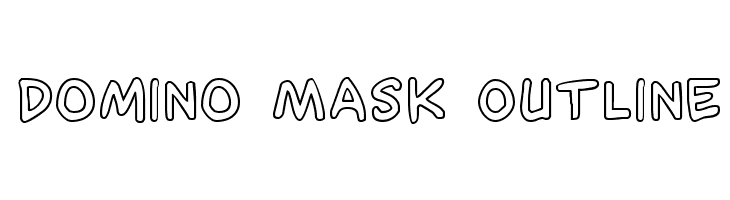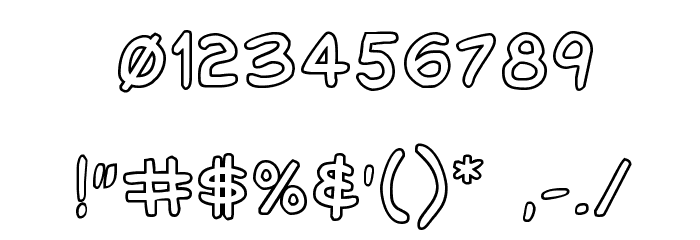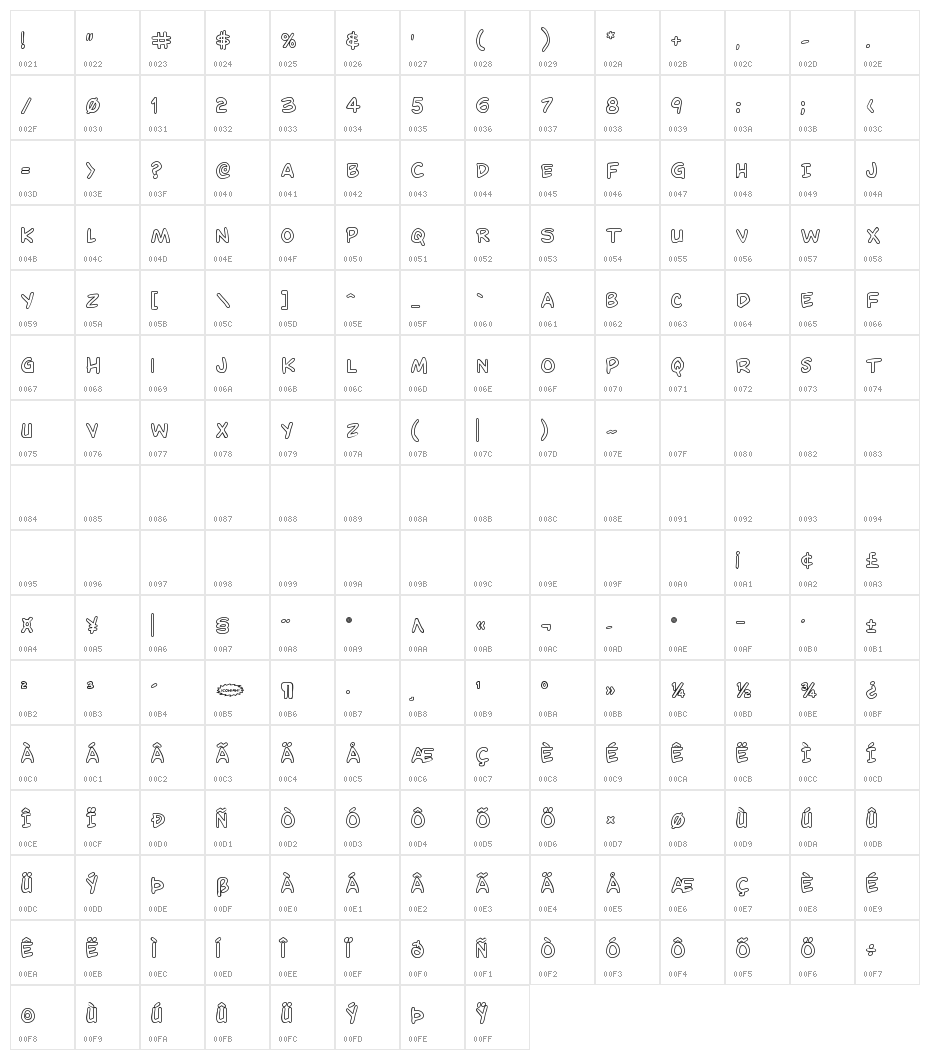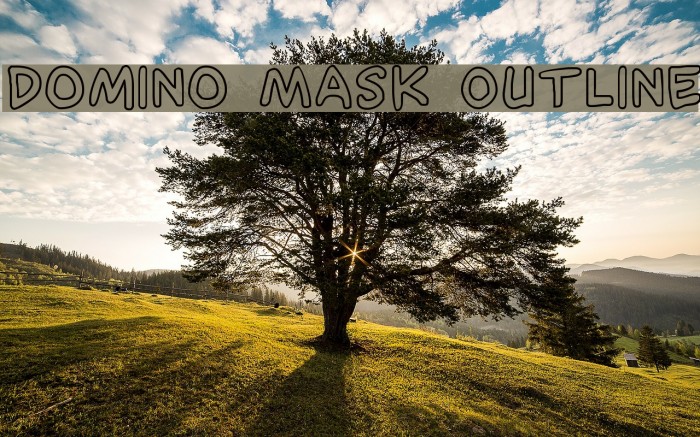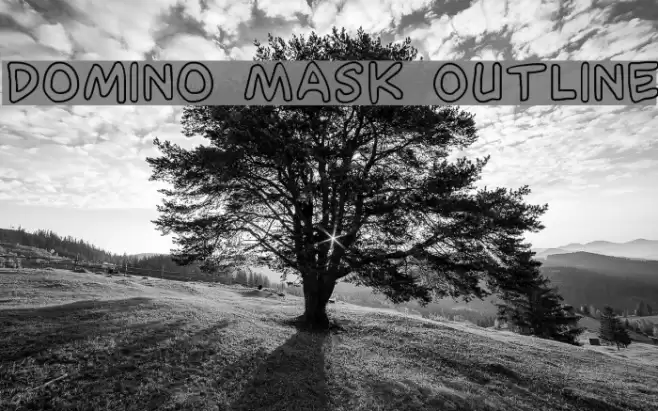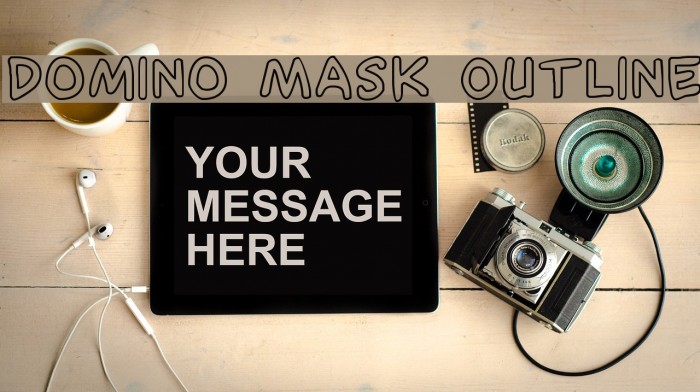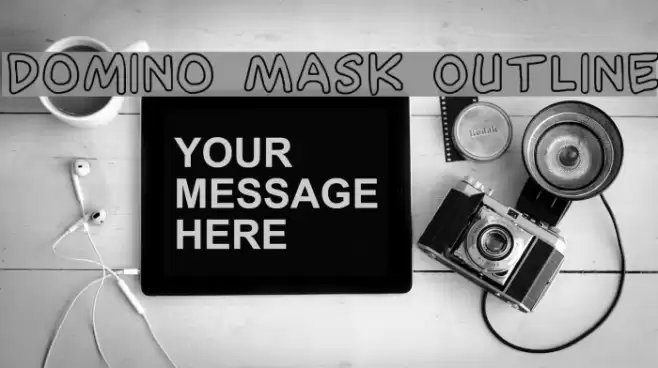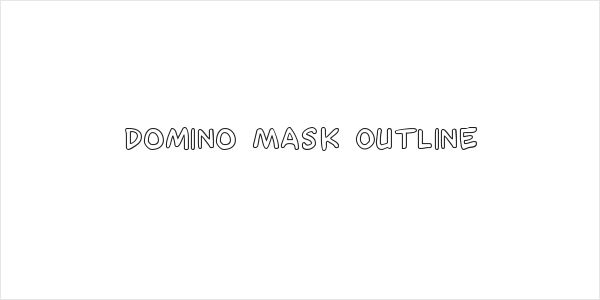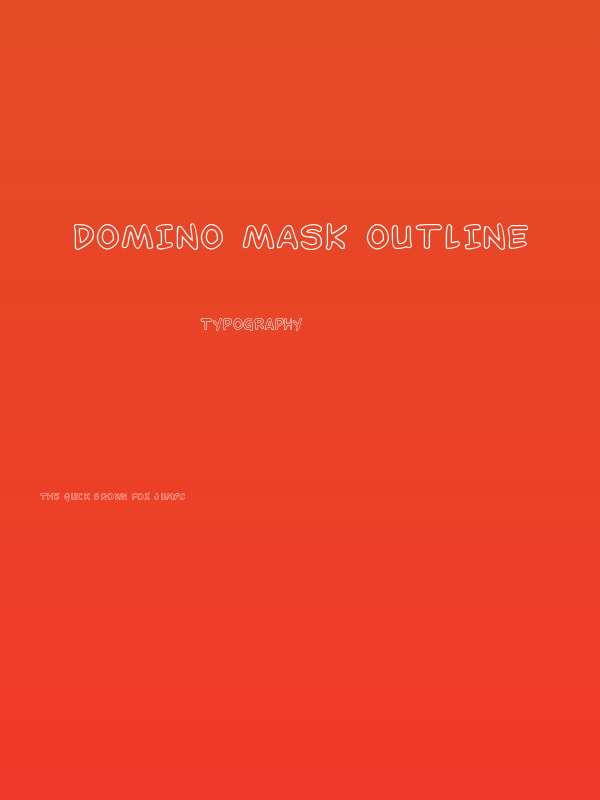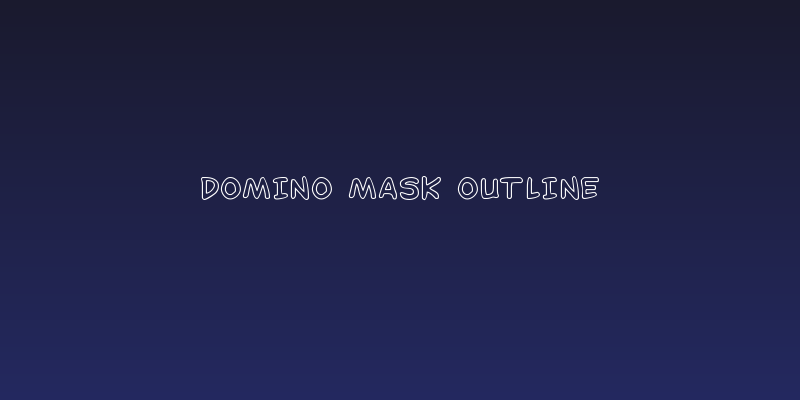
Domino Mask Outline Font
Domino Mask Outline Description
This playful and bold font features a unique outline style that gives each character a distinct, hand-drawn appearance. The letters are rounded and slightly irregular, adding a whimsical and informal touch. The uppercase and lowercase letters maintain a consistent style, with the uppercase being slightly larger and more pronounced. Numbers and special characters are also included, following the same outlined design. This font is ideal for projects that require a fun and eye-catching look, such as children's books, posters, or creative branding.
| Proposed Projects | Ideal for children's books, playful posters, creative branding, and informal invitations. |